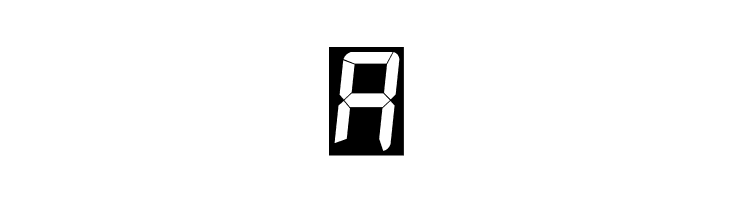
CNC Vector Font
Font by www.philing.net
A geometric and precise font with sharp, angular shapes.
LACAN Font
Font by Philippe BLONDEL www.philing.net
An abstract, intellectual font with diagonal line accents.
Amandine Font
Font by www.philing.net
A playful handwritten font with fluid, interconnected strokes and a whimsical style.
Braille 3D Font
Font by Philippe BLONDEL www.philing.net
A 3D visual representation of Braille characters using raised spherical dots.
Sophie Font
Font by www.philing.net
A playful, casual handwritten font with rounded, irregular letterforms.
Braille Normal Font
Font by Philippe BLONDEL www.philing.net
Braille is a tactile writing system using raised dots for the visually impaired.
CNC Vector Mirror Font
Font by www.philing.net
A geometric, industrial font with sharp, precise lines and uniform stroke width.
Adelyne Font
Font by www.philing.net
A fluid and elegant script font with connected letters and graceful curves.
BERNARD Font
Font by www.philing.net
A decorative cursive font with elegant, flowing script style.
Accords Font
Font by Philippe BLONDEL www.philing.net
Modern geometric sans-serif with clear, open shapes.
7LED Font
Font by www.philing.net
A segmented, digital-style font resembling an LED display.
phonétique Font
Font by Philippe BLONDEL www.philing.net
A playful and bold font with unique curves and flourishes.
7LED italic Font
Font by www.philing.net
A digital display-inspired font with a segmented, italicized style.
Michelle Font
Font by www.philing.net
A cursive, elegant script font with a handwritten style.
Philing Font
Font by www.philing.net
A casual, handwritten font with a fluid and dynamic style.
Valerie Font
Font by Philippe BLONDEL www.philing.net
A playful, handwritten font with fluid and dynamic strokes.
Georges Font
Font by www.philing.net
A casual, handwritten font with a flowing and connected style.
Langage des signes Font
Font by Philippe BLONDEL www.philing.net
Hand-drawn illustrations of sign language alphabet gestures.
Lalex Big Badaboum Font
Font by www.philing.net